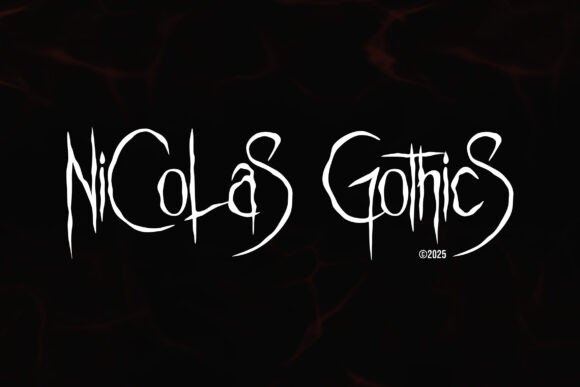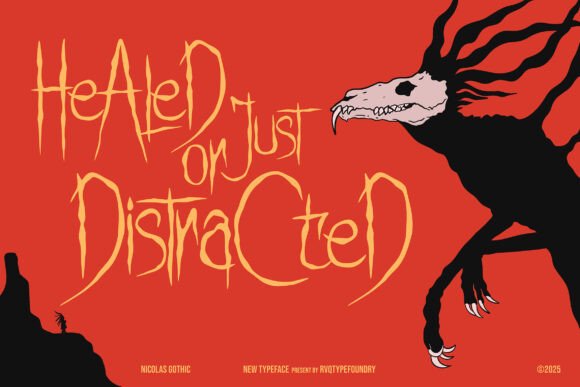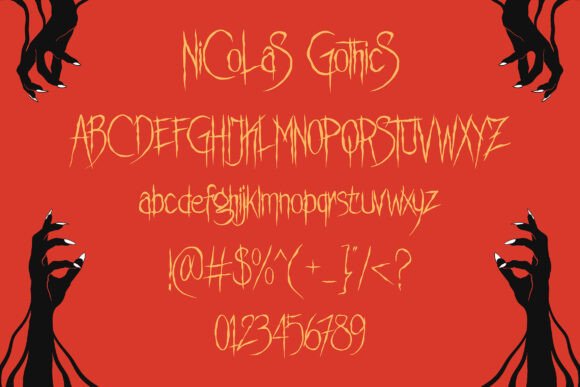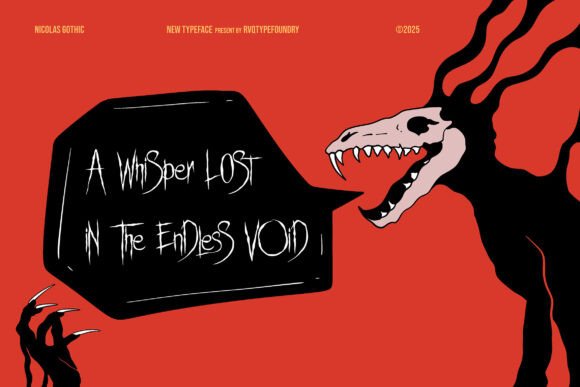
Nicolas Gothics Font: Spine-Chilling Display Font for Posters
About the Nicolas Gothics Font
Step up your design game with Nicolas Gothics Font, a font that exudes confidence and style. Nicolas Gothics is a spine-chilling display font with jagged, elongated strokes and eerie hand-drawn character. Perfect for horror movie posters, Halloween party invites, band logos, or dark fantasy book covers, this font brings a sinister and dramatic flair to any design. Its scratchy, gothic style commands attention and sets a haunting tone.
Nicolas Gothics excels as a display font for projects requiring a strong, dramatic impact. Ideal applications include headlines, logos, posters, and short-form text on packaging where its unique character can shine. Avoid using it for body copy or UI elements; its jagged strokes and low readability make it unsuitable for extended text.
Its sinister and bold personality pairs well with clean, geometric sans-serif fonts like Futura or Roboto for contrast, creating a balanced and impactful design. For a slightly softer yet still edgy feel, consider pairing it with a classic serif like Garamond or a more modern serif like Playfair Display. Avoid pairing it with other highly decorative or script fonts, as this would overwhelm the design.
The font’s overall aesthetic is best suited for brands and projects related to horror, fantasy, gothic themes, rock music, or anything requiring a dark, mysterious, and powerful visual identity.
Nicolas Gothics Font Usage Examples
Nicolas Gothics Font Example